You can find thousands of elegant fonts on the Internet, which may even be very suitable for creating or updating your Spa designs, but not all of them may be appropriate for this business sphere, so we have selected the best and most excellent fonts for your Spa business designs.
All these Spa fonts are of the best quality created by the best graphic designers. Spa fonts can also be suitable for other designs such as hair salons, barber shops, aqua parks, massage parlors, fashion campaigns, beauty salons and much more. Stay positive and create your design easily.
LeBorn Font
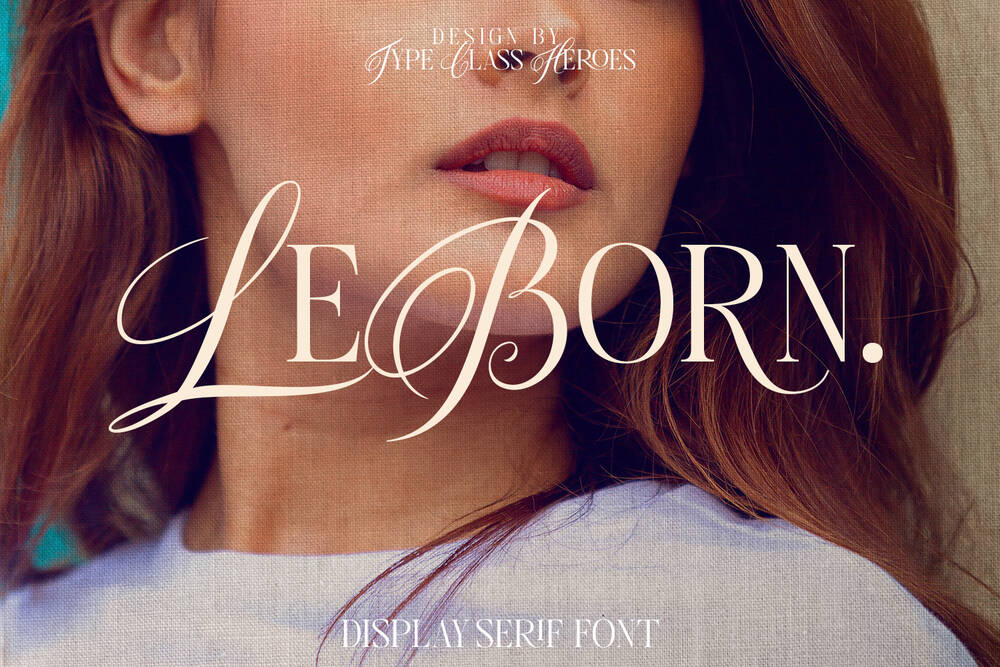
It is a luxury calligraphy combine with modern serif ligatures and special alternative glyphs so you can create a lots with layouts and compositions. Perfect for poster design, book covers, merchandise, fashion campaigns, newsletters, branding and etc.
Rozelle Fonts
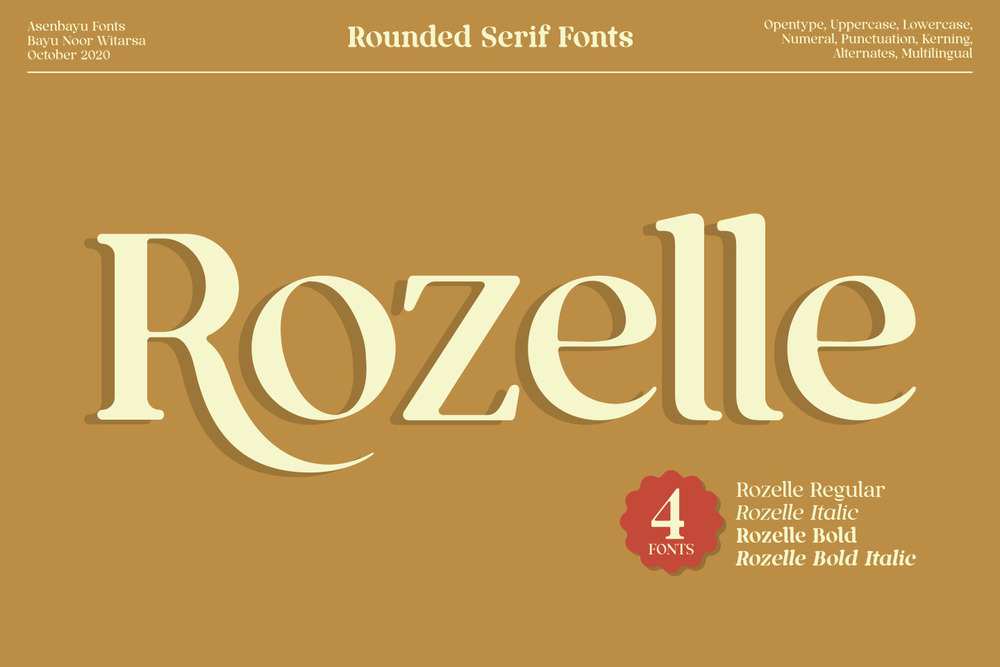
It is an elegant serif fonts with rounded edges. They are formed as a unique multipurpose font and you can use them in vintage, retro, and modern designs.
Qualux Font Family
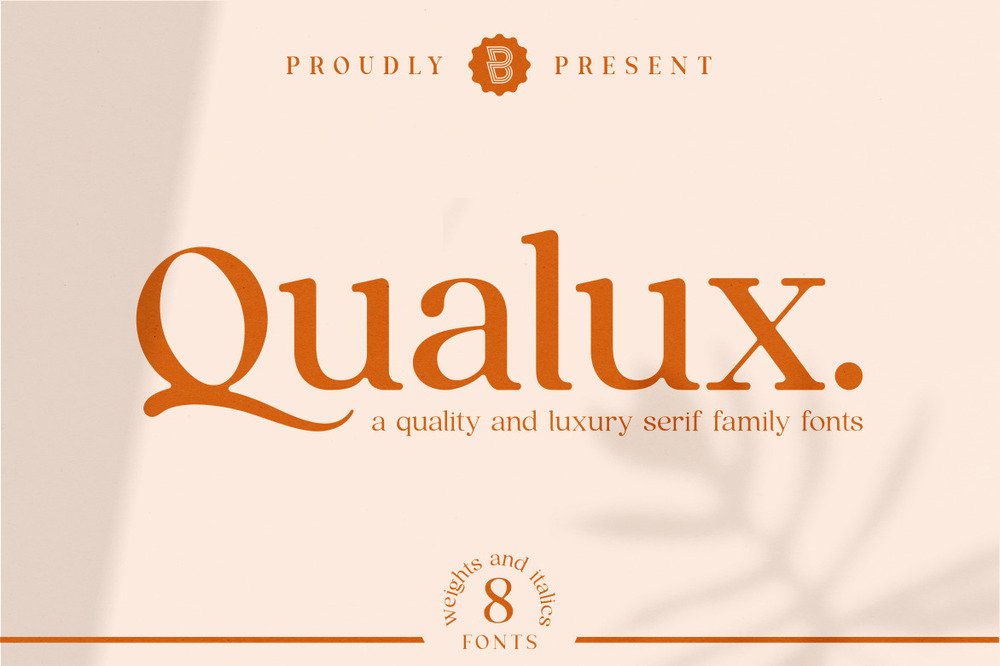
It is a luxury font family with 8 weights so good for designs such as vintage book covers, magazines, logos, greeting cards, invitations and etc.
Femme Beauty Display Font
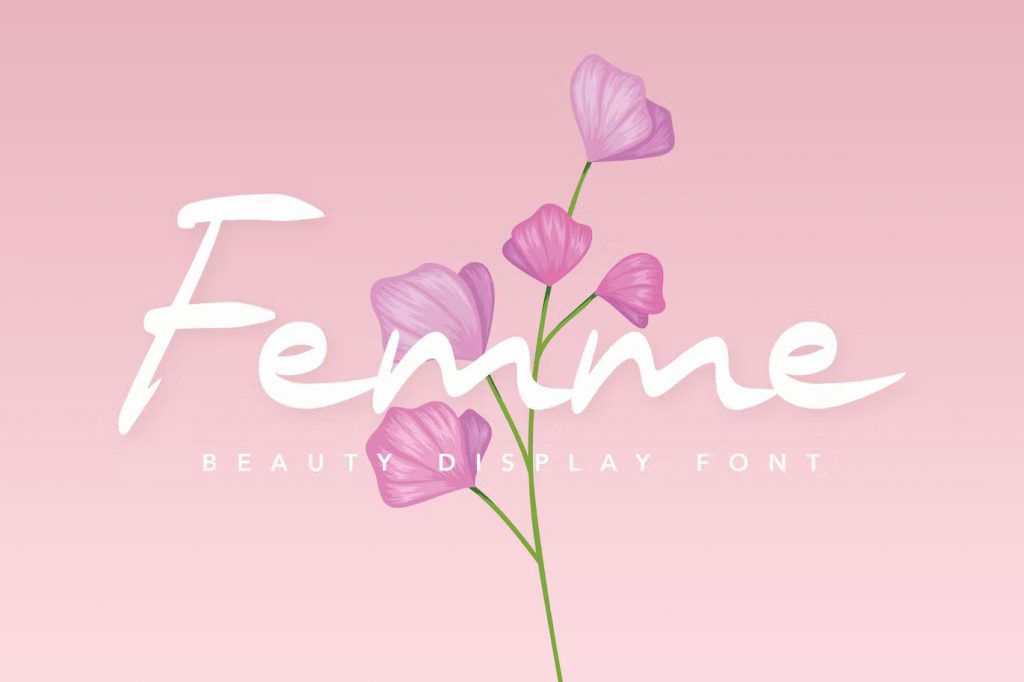
This elegant font comes with a beauty looks and modern style. Perfect fit for the wedding, letters, beauty, movie titles, city, landmark, business cards and etc.
Eiosaka – Beauty and Elegant Font
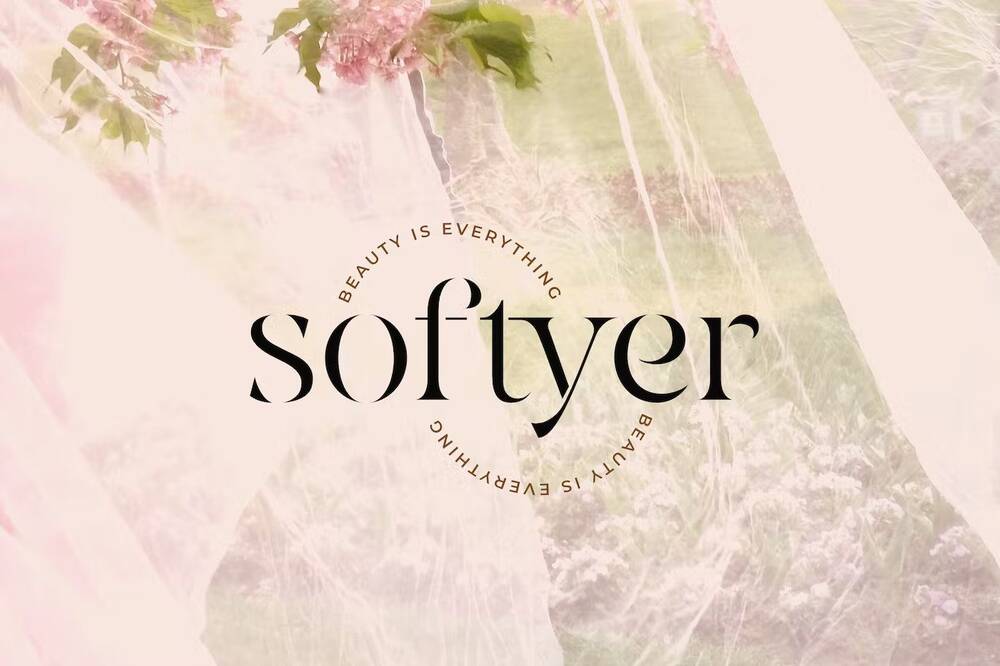
It is a beauty elegant stencil serif fashionable font so good going for luxury logos and branding, classy editorial designs, woman magazines, cosmetic brands, fashion promotionals and etc.
Kaivalya – Cultural Type
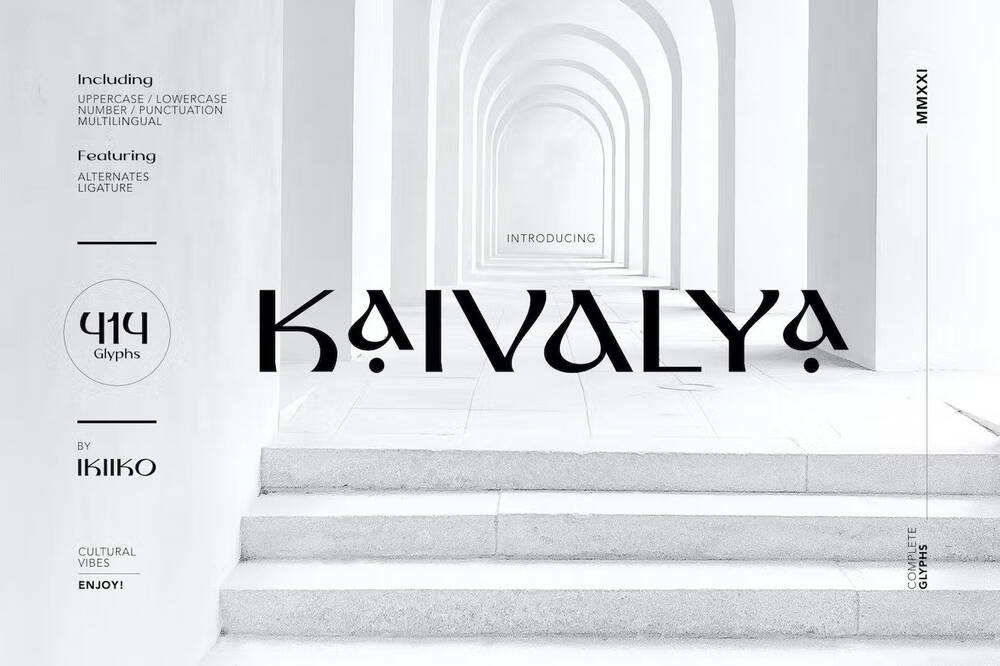
A cultural font that has beautiful gestures, with a touch of tradition. Perfect for an elegant logos, yoga and meditation stuff, beauty products, packaging, spa, community logos, magazines and etc.
Free Paradise Thin Font
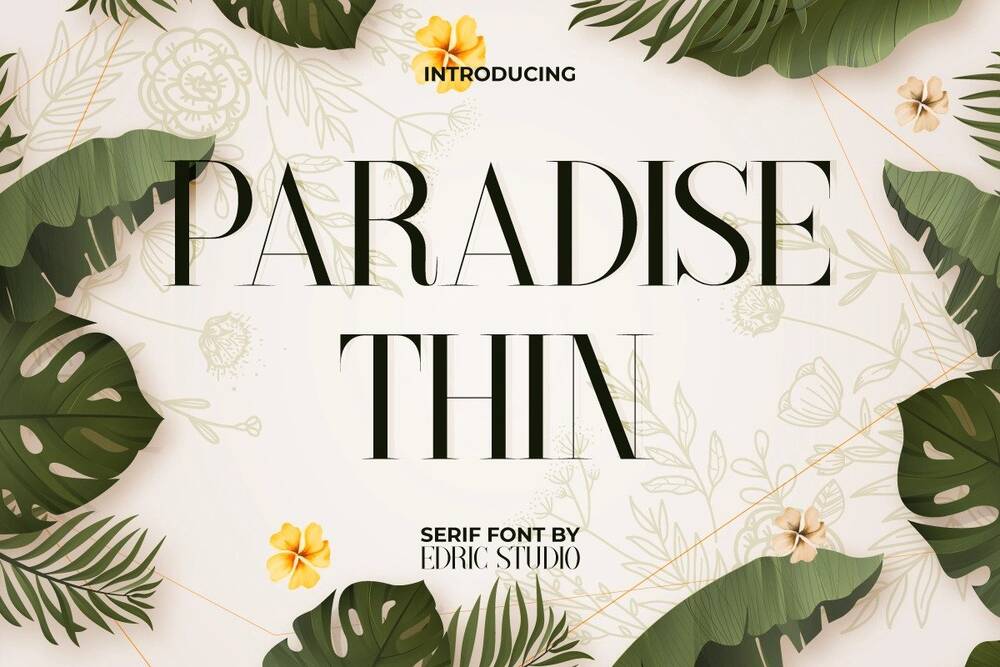
Free and beautiful thin line serif font for your designs such as beauty salons, spa, magazines, packaging and etc.
Free Little Bird Vintage Script Font
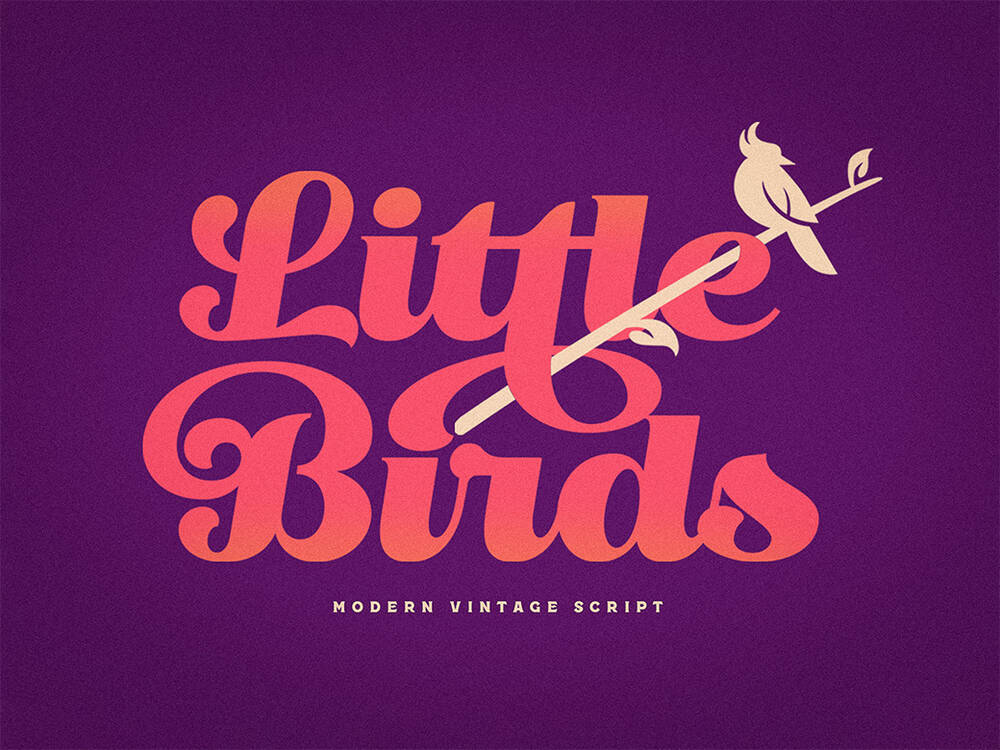
Add a more decorative style to any of your upcoming projects such as beauty designs, covers, wedding, invitations, spa, magazines and etc.
Free RedSky Signature Font
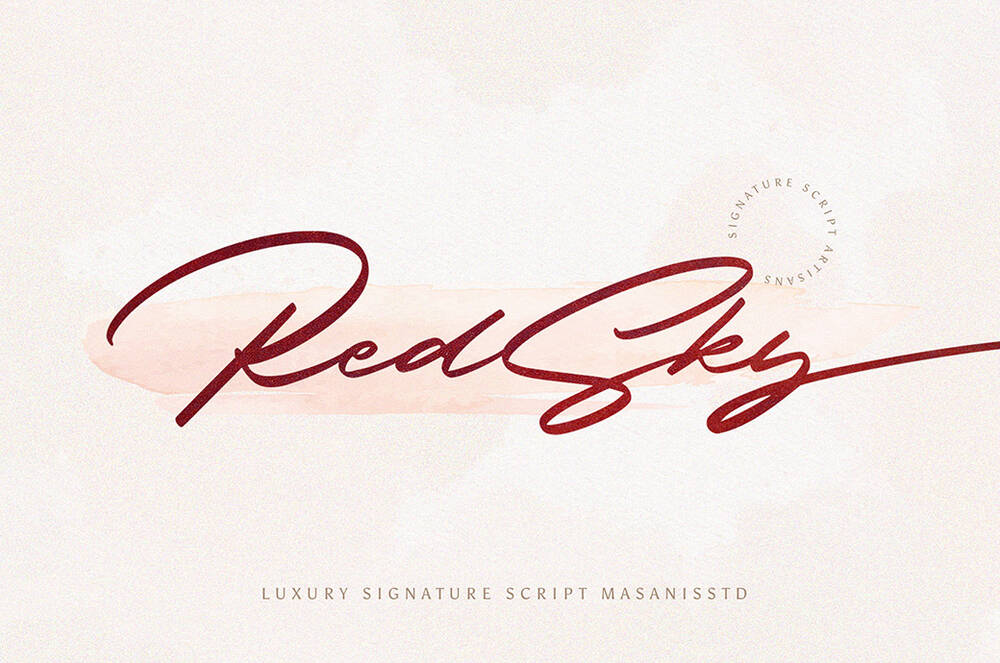
Free luxurous and classy signature script font for all your designs such as wedding invitations, headers, editorial, logos, slider blogs, social media, beauty designs and etc.
Denise Beauty Font
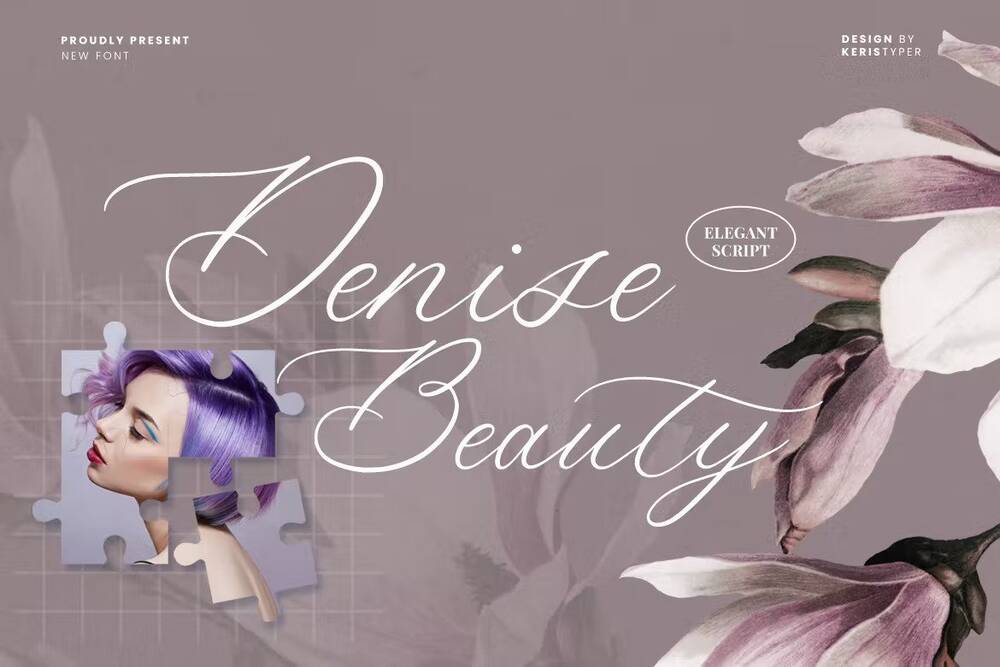
This beautiful script is for those who are needing of elegance and stylish character for their designs and particularly well suited for wedding invitations, save the date cards, beauty salon designs and feminine branding.
Salute – Modern Vintage Beauty Font
A special vintage decorative font for your branding. Ideal beauty salons, spa, magazines, brochures and etc.
So Beautiful Font
It is a handwritten font family that includes pretty swatches and extra botanical elements to create the cutest logos, packaging, wedding invitations or any design project with a natural style.
La Beuties Font
It is a casual and modern handwritten font that comes with a distinctive chic character that adds unique value to the font, perfect for branding, beauty designs, wedding invites cards, and more.
Beauty Nigella Font
It is a serif display typeface that has the thickness of a regular font. Suitable for invitation cards, quotes, titles, magazines and etc.
Angelyta Beauty Script
It is a beautiful modern script font with an alternative blend of more than 150 alternate (opentype) features suitable to support your designs, for business, company, brands, clothes, books and etc.
Chasy Beauty Script Font
A stylish, modern and beautiful script font with an elegant feel. Perfect for display projects such as quoted text, product name, logos, presentation, coffee-themes, fashion and product packaging.
Mick Kelly – Beauty Modern Font
A beauty serif with a lot of unique and beautiful alternate characters. Ideal for magazines, postcards, logos, Wedding projects, beauty designs, spa and etc.
Calming – Beaty Elegant Serif Font
It comes with some alternates and ligatures, so you can combine it to make a perfect typography design. Perfect for luxury logos and branding, classy editorial designs, woman magazines, cosmetic brands, spa and etc.
Belly and Park – Beauty Sans Font
A natural, organic and classic font for all your beauty business needs. Ideal for salons, posters, covers, magazines, brochures and etc.
Creams Handmade Beauty Font
Give your designs an authentic handcrafted feel. This font perfectly suited to signatures, stationery, logos, typography quotes, magazine or book covers, website headers, clothing, branding, packaging designs and more.
It is a beautiful and inspiring mix of classic calligraphy and modern serif with 56 unique ligatures. come with 2 versions regular and italic. Perfect for greeting cards, invitations, coupons, titles, posters and etc.